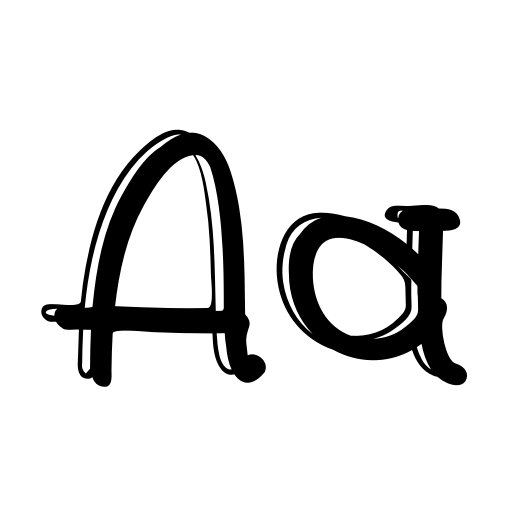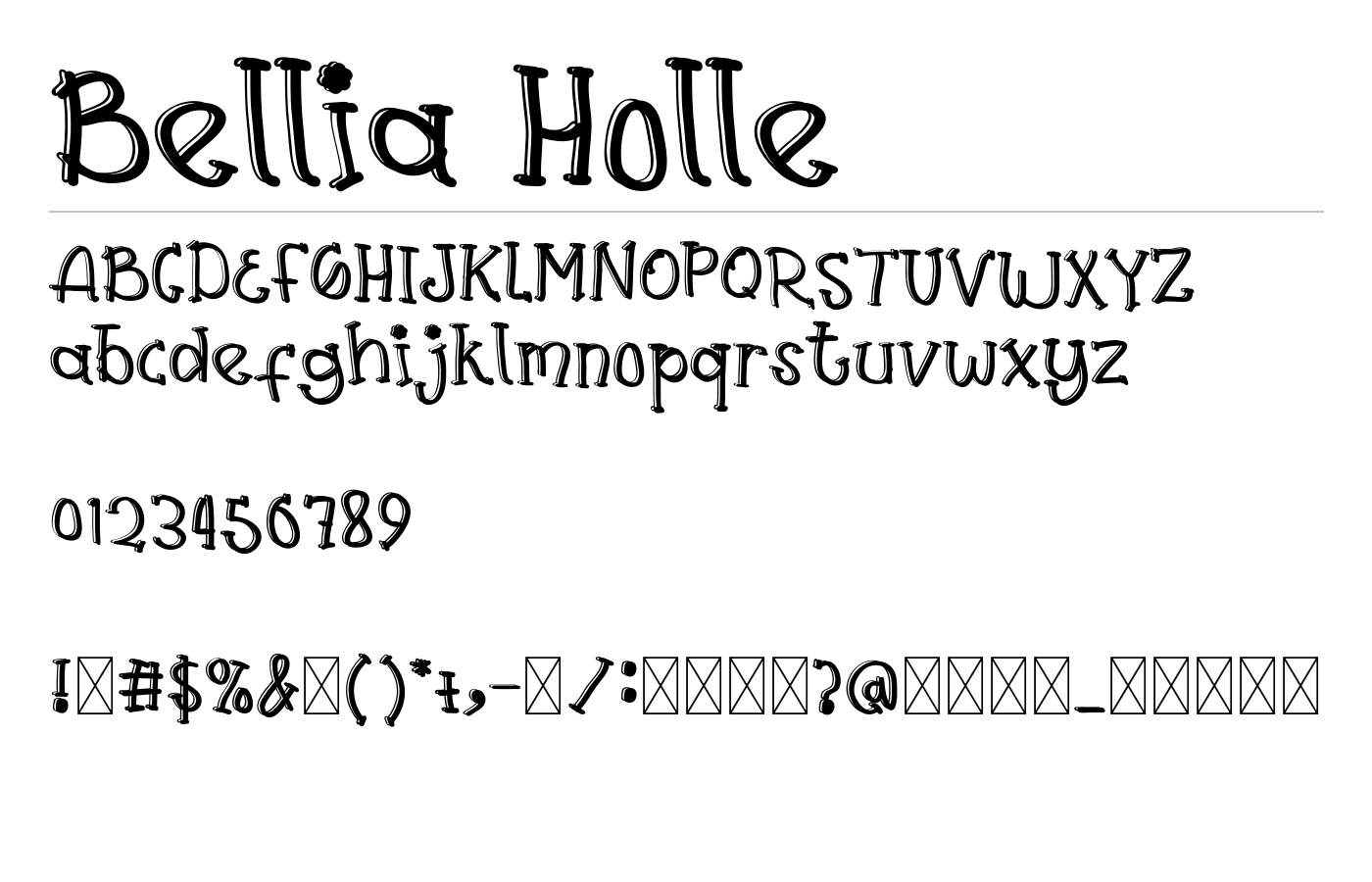
Bellia Holle is a playful, hand-drawn serif font with a quirky and whimsical character. Its irregular strokes and playful curls give it a casual, friendly feel, making it ideal for creative projects, children’s books, and informal branding that seeks a fun and approachable vibe. This font’s unique style works best for headings, logos, and designs where personality and charm are key.
Bellia Holle Font